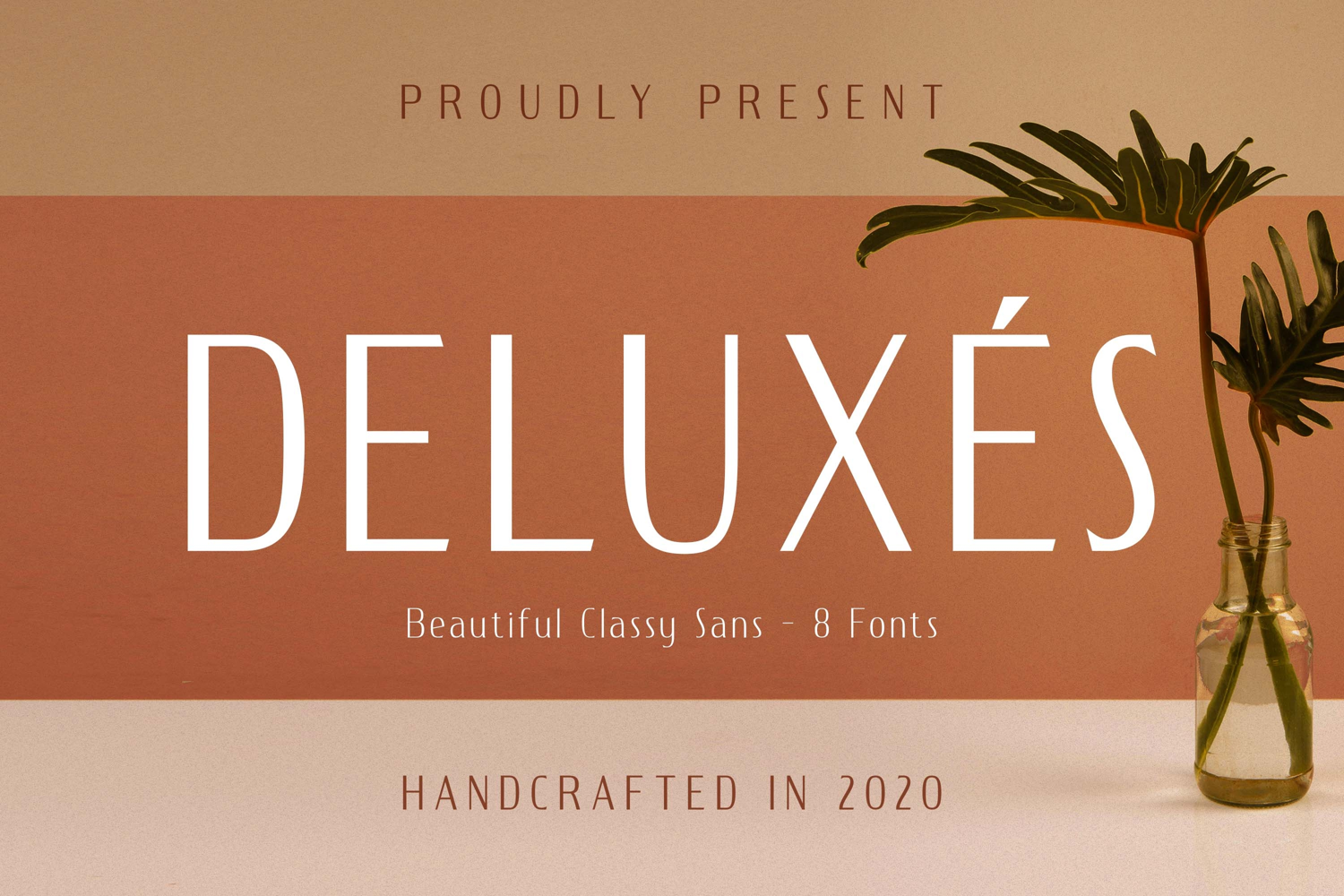
Deluxes - Beautiful Classy Sans
Introducing DELUXES – Beautiful Classy Sans font with a stylish touch inspired by the famous minimalist logo and DELUXES has 8 font styles is perfect for the purposes of designing templates, brochures, videos, advertising branding, logos and more.